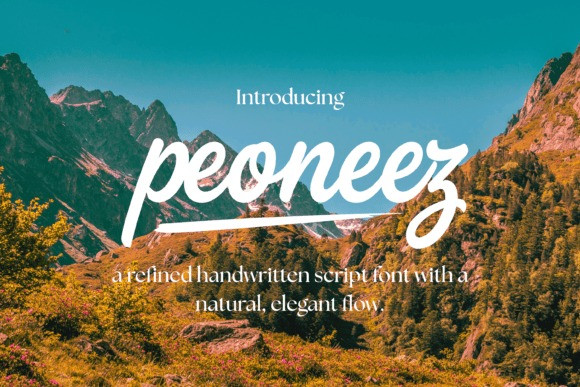
Peoneez Font
Peoneez Font a refined handwritten script font defined by its completely natural, elegant flow. Striking a magnificent balance between energetic brush typography and upscale lifestyle aesthetics, this regular display script features a smooth forward slant, thick marker strokes, and fluid letter connections. Its true stylistic signature lies in the soaring, elongated ascenders paired with a dramatic, custom underline swash that cuts sharply beneath the text like a fresh brush trail.
Featuring clean, optimized outlines and heavy visual weights, Peoneez cuts through complex background imagery with effortless clarity. Layered over stunning mountain vistas, travel photography, or organic textures, it infuses layouts with an immediate sense of wonder, wanderlust, and human craftsmanship. It stands out as an extraordinary design asset for outdoor adventure lifestyle brands, travel vlog thumbnails, extreme sports merchandise slogans, boutique organic product packaging, and high-impact social media quote graphics.